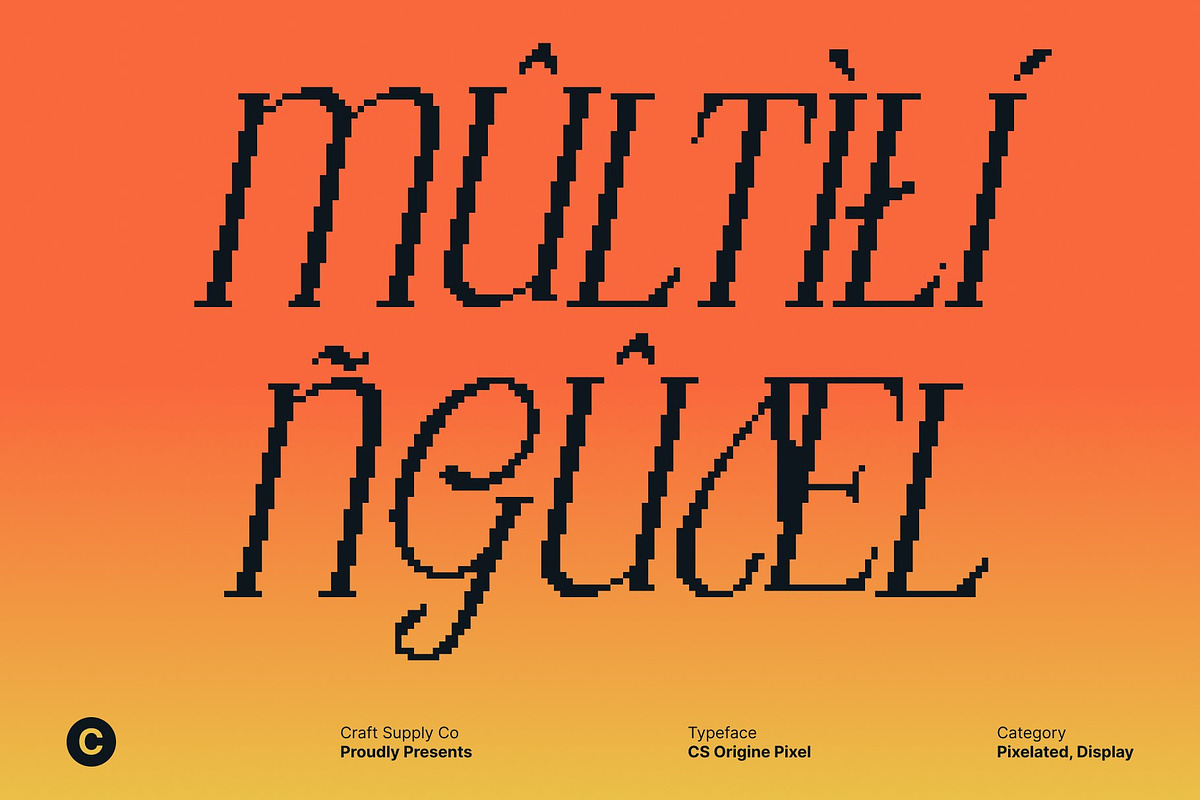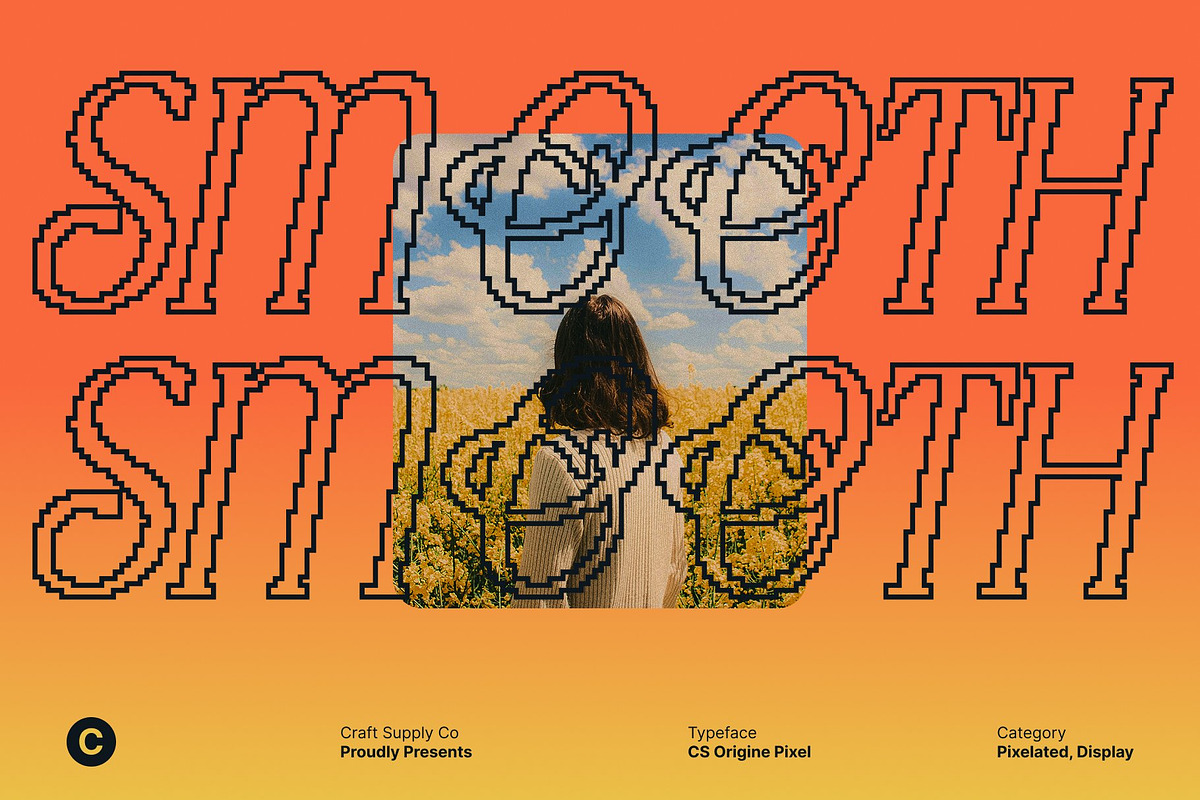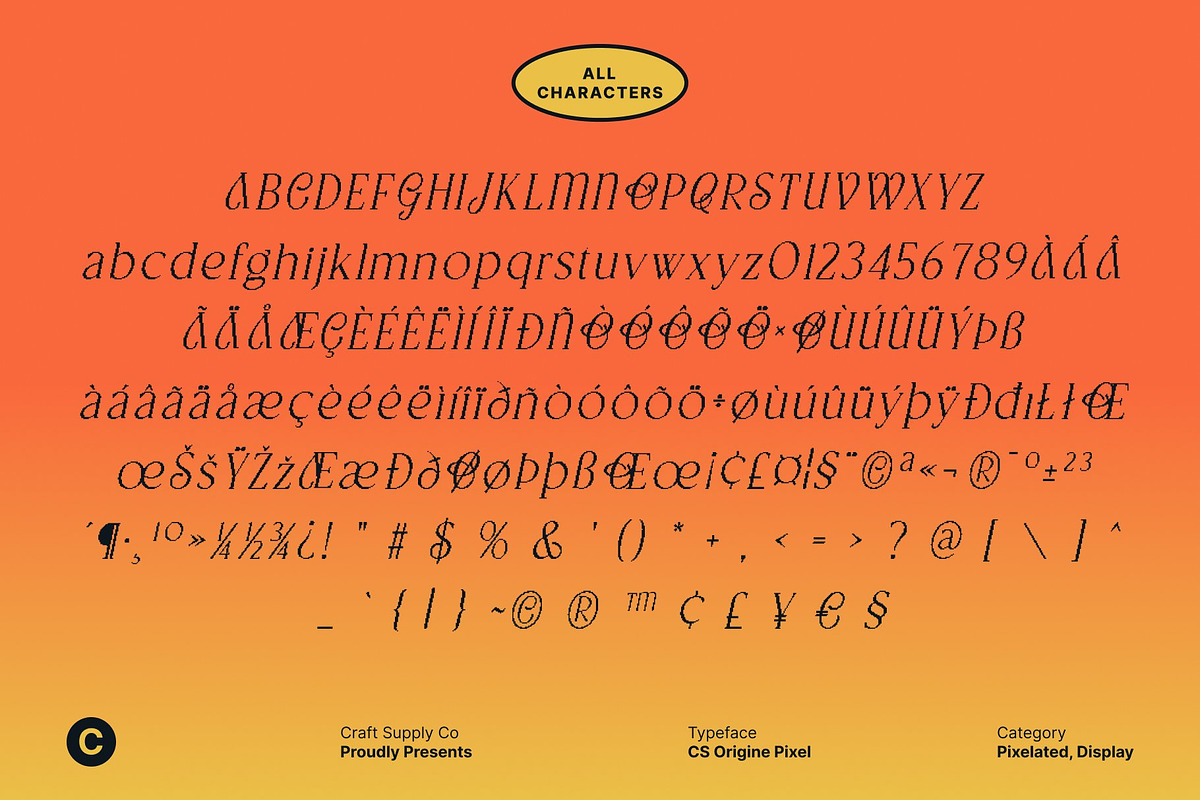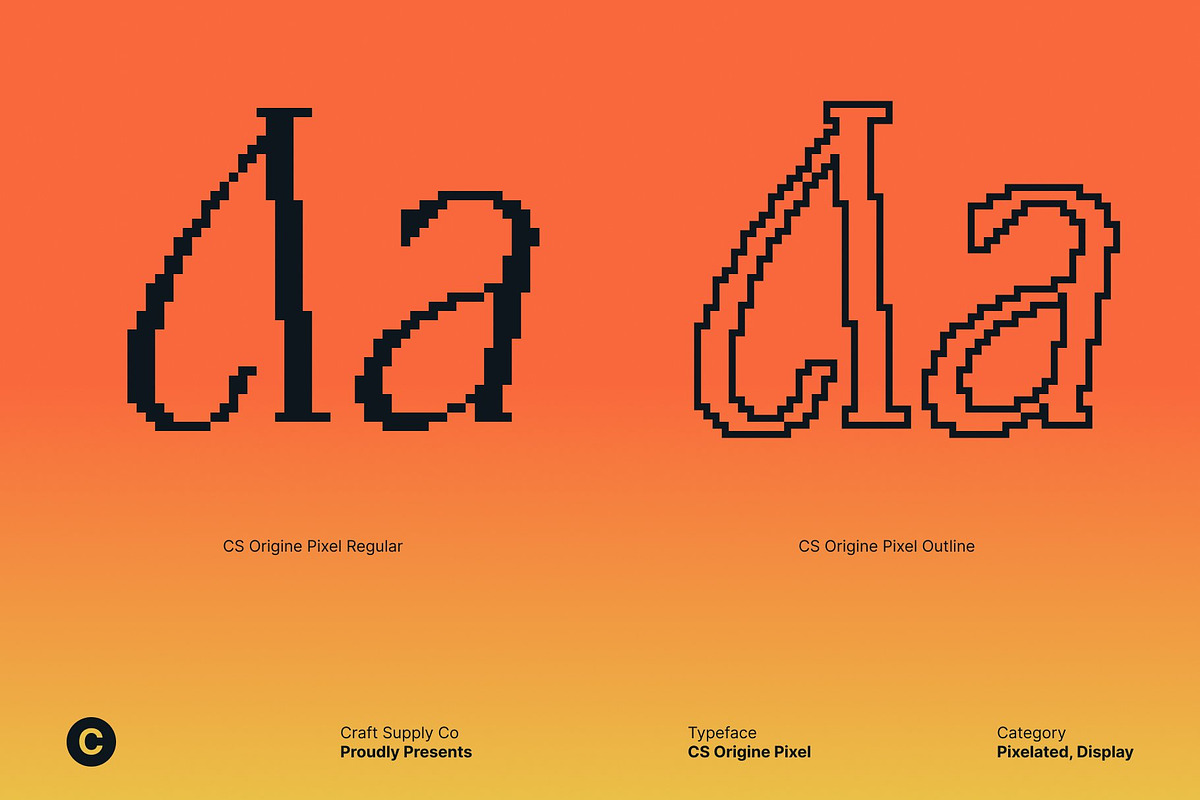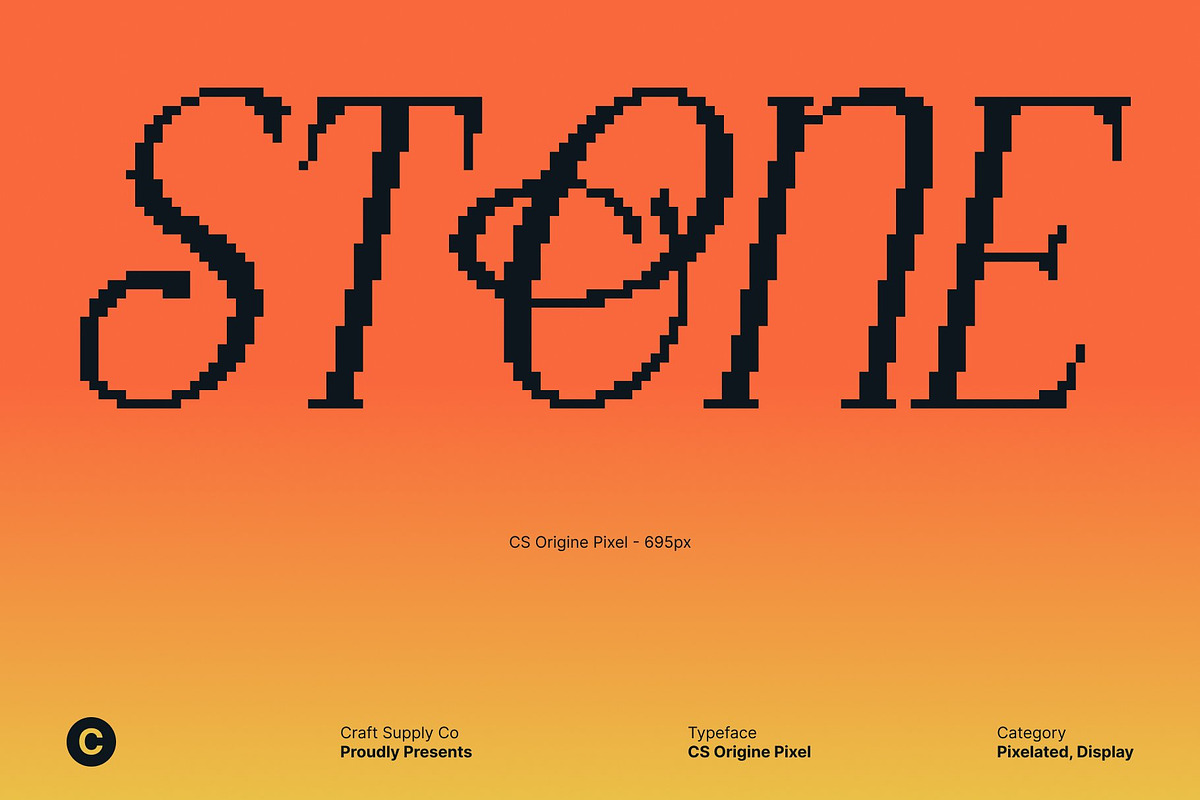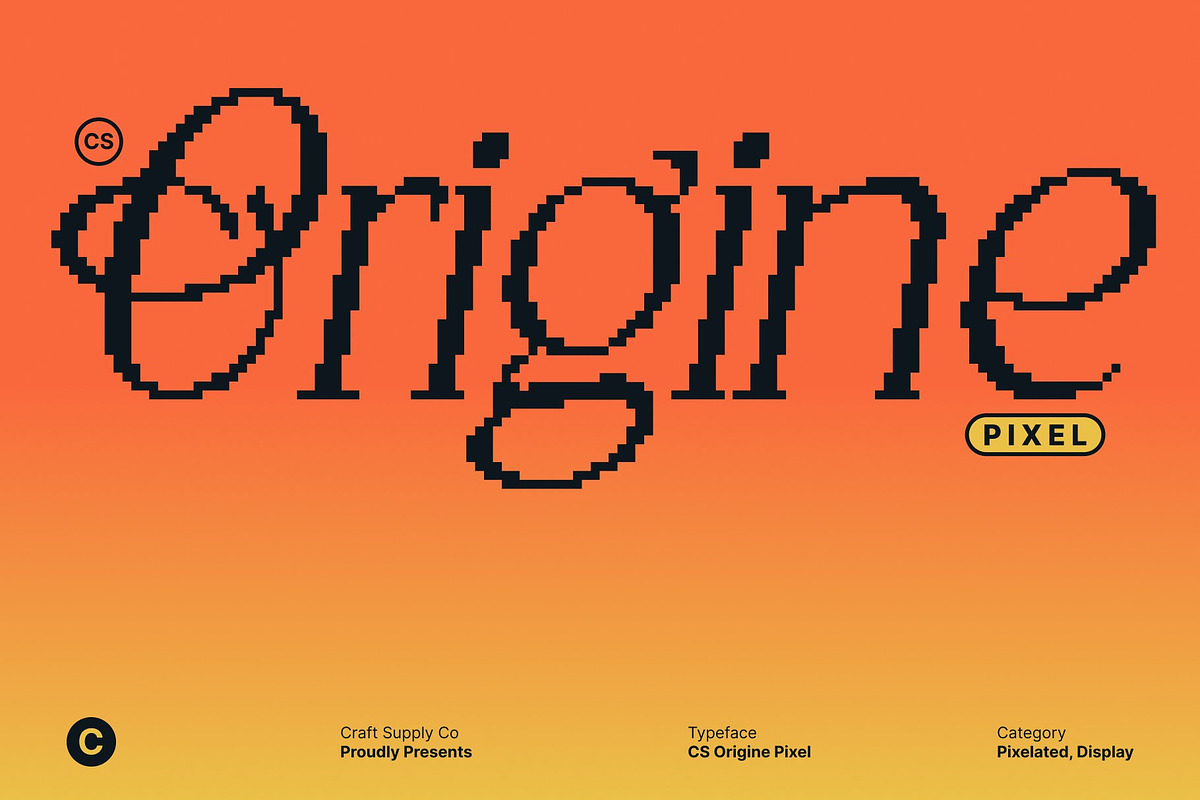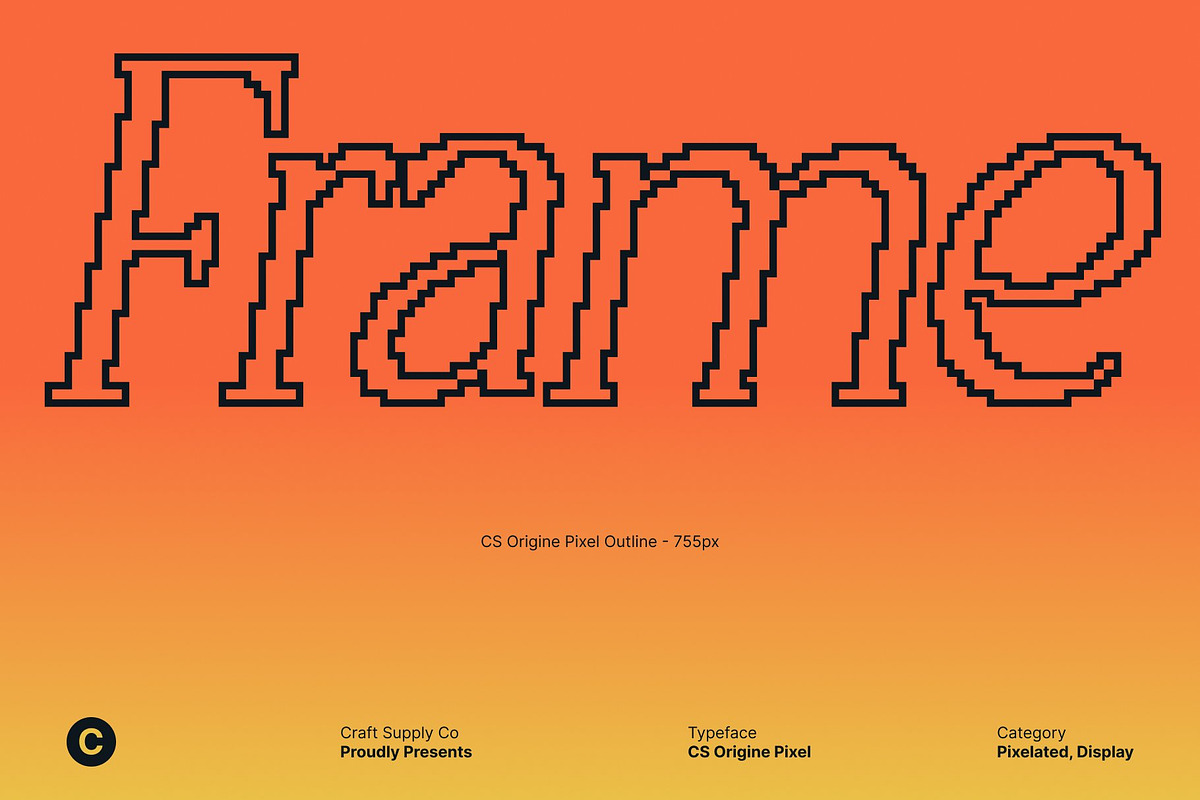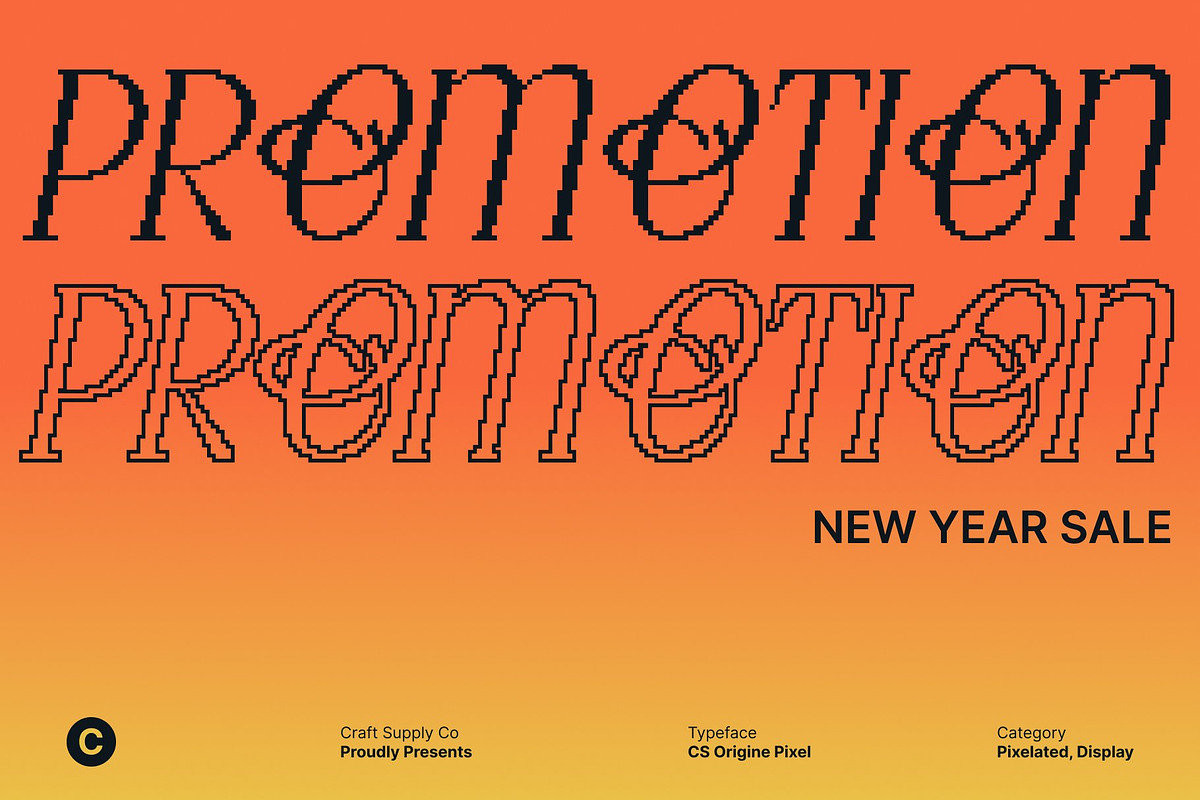
CS Origine Pixel
CS Origine Pixel – Exotic Elegance with Digital Precision
Exotic Serif Elegance Reimagined in Pixel Form This font refines the original font’s exotic serif beauty into a structured pixel-based design. Its graceful curves and sculpted details are translated into crisp, blocky forms, preserving sophistication while adding a distinctive digital presence. The result is a font that feels luxurious yet unmistakably tech-inspired.
Pixel Precision with Sleek, Refined Character Each letterform balances ornamental elegance with pixel clarity. The refined serifs and slender proportions remain intact, now enhanced by sharp pixel edges that give the font a bold visual rhythm. This fusion creates a striking contrast between classic elegance and modern digital aesthetics, perfect for designs that want to stand out with confidence.
Elegant Readability for Digital and Retro-Tech Use Designed to perform beautifully on screens, this font delivers clarity and style in digital layouts. Its pixel construction makes it especially suitable for interfaces, posters, titles, and visuals inspired by old technology, retro systems, or futuristic displays while still retaining a premium, high-end feel.
Perfect for Premium Branding with a Digital Twist Ideal for luxury branding, editorial headlines, posters, and creative identities, this font brings exotic sophistication into the digital era. Whether used in modern campaigns or nostalgic tech-inspired visuals, this font transforms elegance into a bold, contemporary statement that feels both timeless and futuristic.
- CS Origine Pixel Regular
- CS Origine Pixel Outline